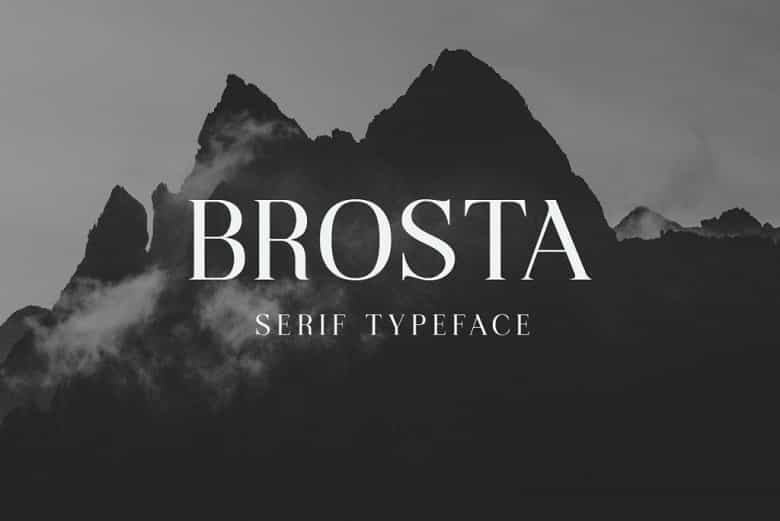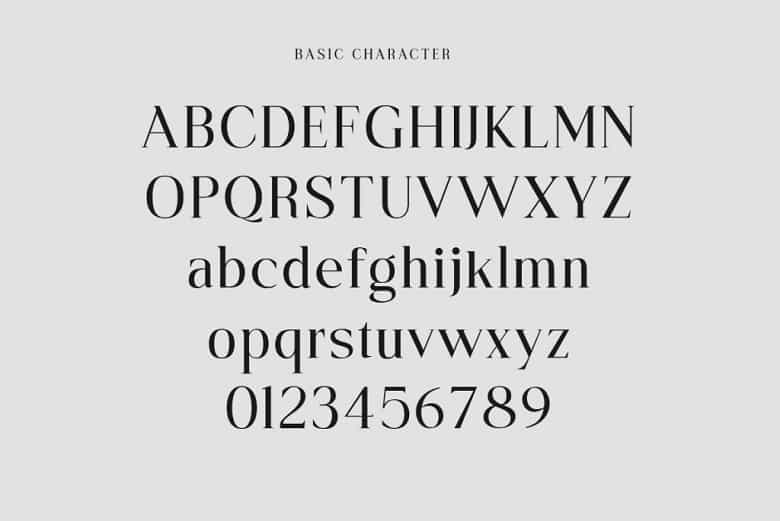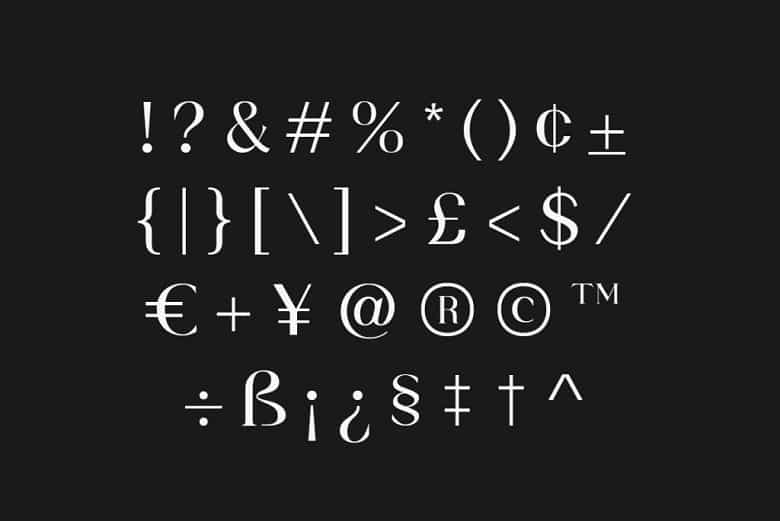
Brosta is a modern serif font created & designed by YUKITA CREATIVE. The letters in bold are larger but simple to give the text a powerful and simple appearance that will make it Pop out. It is perfect for any type of design and can be used to design beautiful wedding invitations, stunning stationery art, attractive social medial graphics and many other things.